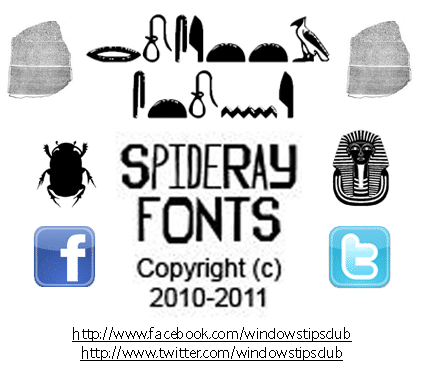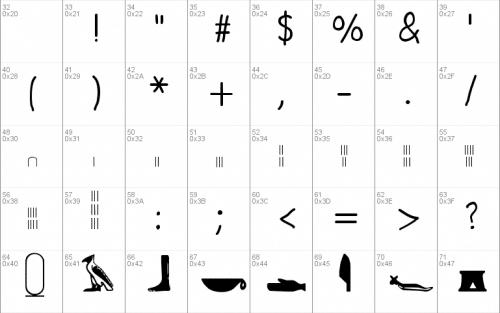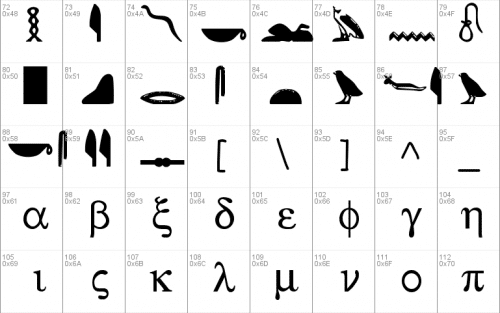
Rosetta Stone Font
Rosetta Stone Font created for personal use only, please enjoy typing in two of the ancient writings that was used for important and religious documents way back in 196 BC, hieroglyphs were normally enclosed in a cartouche, the greek is modern lowercase for comparison only, demotic to follow soon.
From the Ptolemaic Period, 196 B.C.
Height: 114.400 cm (max.)
Width: 72.300 cm
Thickness: 27.900 cm
Weight: about 760 kilograms (1,676 lb.)
The Rosetta Stone is inscribed in 3 languages:
Demotic (the everyday script, used to write documents),
Greek (the language of Ionian Greeks, an administrative script), and
Hieroglyphs (for priestly business).
• Designer: SpideRaYsfoNtS